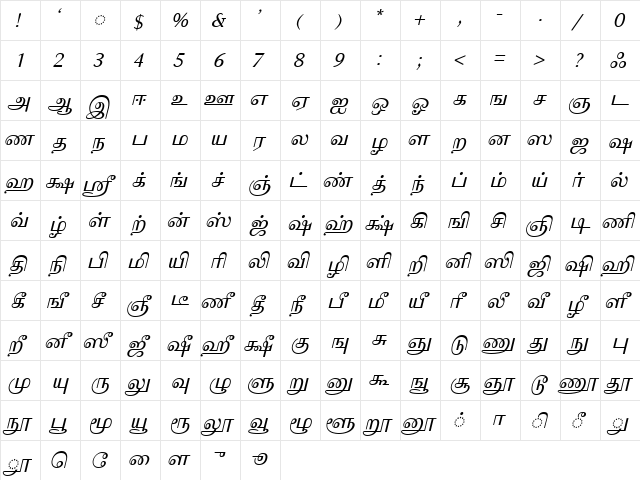
IdsTamil_TG_2_ Italic
Design Context for IdsTamil_TG_2_ Typeface
IdsTamil_TG_2_ is a composed and adaptable typeface that performs quietly and consistently across a wide range of design contexts. The dynamic lean of this cut emphasises speed and emphasis in any layout.
Pro Tip: Use IdsTamil_TG_2_ for emphasis, pull quotes, and subheadings where its slanted energy can add rhythm to the layout.